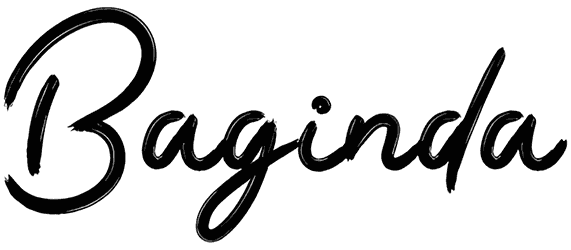
Baginda Font
Since overusing repetitive fonts in graphic content can be a serious threat to the quality of your work, we recommend considering a marvelous script font like Baginda as an alternative.
Aside from not supporting numbers, this brush font really deserves to be on your radar in the realm of designing blog posts, street posters, stickers, video game brochures, or flyers. Don’t forget that it can lead to a feeling of personalization, cheer, and tenderness.